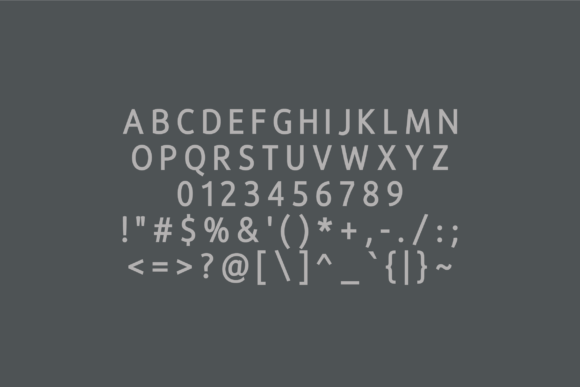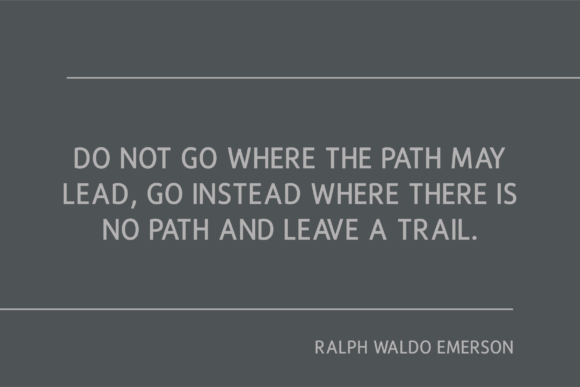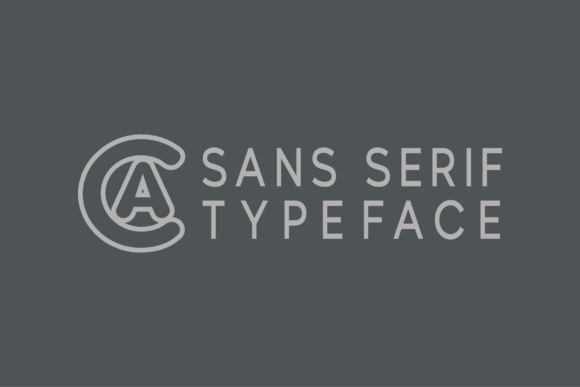
Discover the Elegance of Eosyne Font: A Modern Sans-Serif Typeface
Welcome to the world of Eosyne, an epitome of elegance and modernity expressed through a sans-serif typeface. The letters and numerals speak for themselves, each exquisitely designed and detailed. Boasting uppercase characters, numbers 0-9 along with a variety of punctuation and symbols, Eosyne is truly comprehensive.
What Makes Eosyne Stand Out?
Eosyne is not just another font; it’s an experience. Its clean lines and modern aesthetic make it perfect for a wide range of applications. Whether you’re designing a logo, crafting a wedding invitation, or creating an advertisement, Eosyne’s versatility shines through. This highly flexible font effortlessly compliments a myriad of mediums, from digital platforms to print media.
Key Features of Eosyne Font
- Comprehensive Character Set: Eosyne includes uppercase characters, numbers 0-9, and a variety of punctuation and symbols, ensuring you have everything you need for your design projects.
- Elegant Design: Each letter and numeral is meticulously designed to provide a modern and sophisticated look.
- Versatility: Eosyne can be used across various mediums, including logos, wedding invitations, quotes, advertisements, and magazine prints.
- Easy to Read: The sans-serif design ensures clarity and readability, making it perfect for both digital and print applications.
Why Choose Eosyne for Your Design Projects?
Choosing the right font for your project can be daunting, but Eosyne offers several advantages that make it an excellent choice for designers and crafters. Its modern aesthetic and elegant design can elevate your projects, making them stand out. Additionally, the font’s versatility means you can use it across different mediums without worrying about adaptability issues.
Using Eosyne in Different Mediums
Eosyne’s adaptability is one of its strongest features. Here are a few examples of how you can use Eosyne in different mediums:
- Logos: Create a lasting impression with a logo that exudes elegance and professionalism.
- Wedding Invitations: Add a touch of sophistication and romance to your wedding invitations.
- Advertisements: Grab attention with bold and clear typography that communicates your message effectively.
- Magazine Prints: Enhance the readability and aesthetic appeal of your magazine articles and features.
Tips for Maximizing Eosyne’s Potential
To get the most out of Eosyne, consider the following tips:
- Experiment with Sizes: Eosyne’s clear design ensures it remains legible at various sizes, so don’t be afraid to experiment.
- Play with Colors: The font’s elegance shines through in different colors, so try pairing it with your brand’s color palette.
- Mix and Match: Combine Eosyne with other fonts for a unique look, but ensure they complement each other.
Dive into Eosyne and let the typography do the talking! With its elegant design, comprehensive character set, and versatility, Eosyne is an excellent addition to any designer’s toolkit. Whether you’re working on a logo, invitation, advertisement, or magazine print, Eosyne can help you achieve a modern and sophisticated look. Explore the world of Eosyne today and discover how this beautiful sans-serif typeface can elevate your design projects.